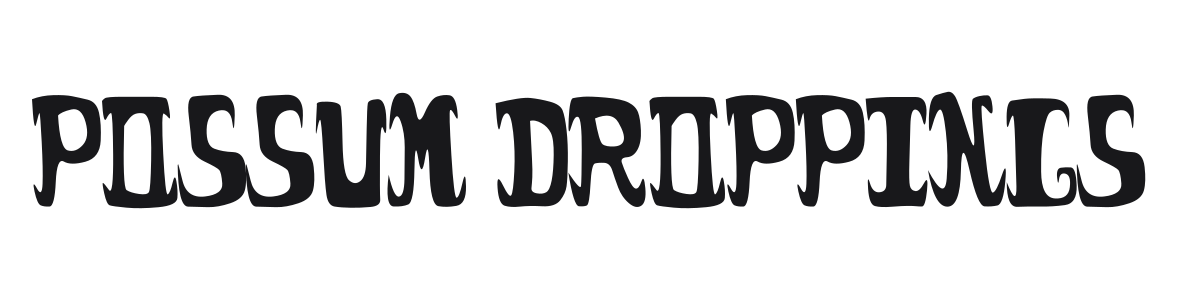
Possum Droppings
Possum Droppings is a heavy psychedelic display font soaked in 1960s and 70s counterculture energy. Strokes swell and pinch in ways no rational type designer would sanction, giving each character a molten, hand-painted quality. It belongs on concert posters, record covers, and anywhere that needs to feel deliberately unhinged.